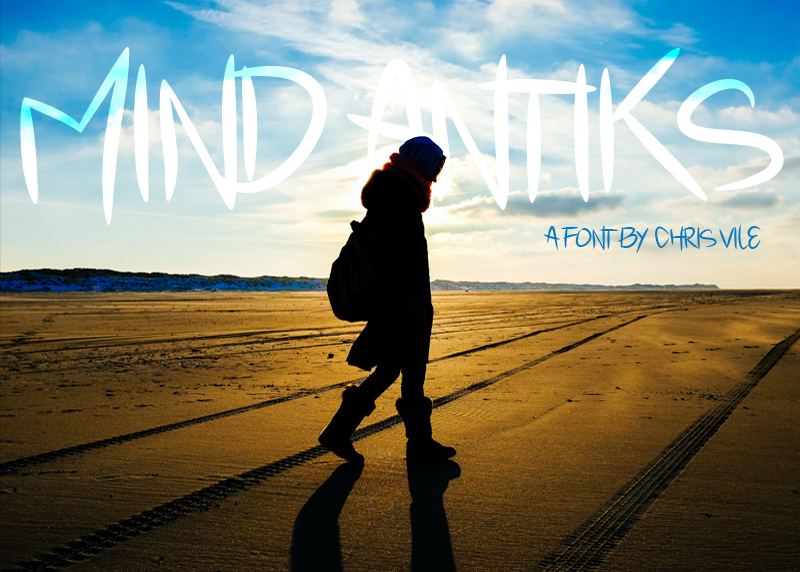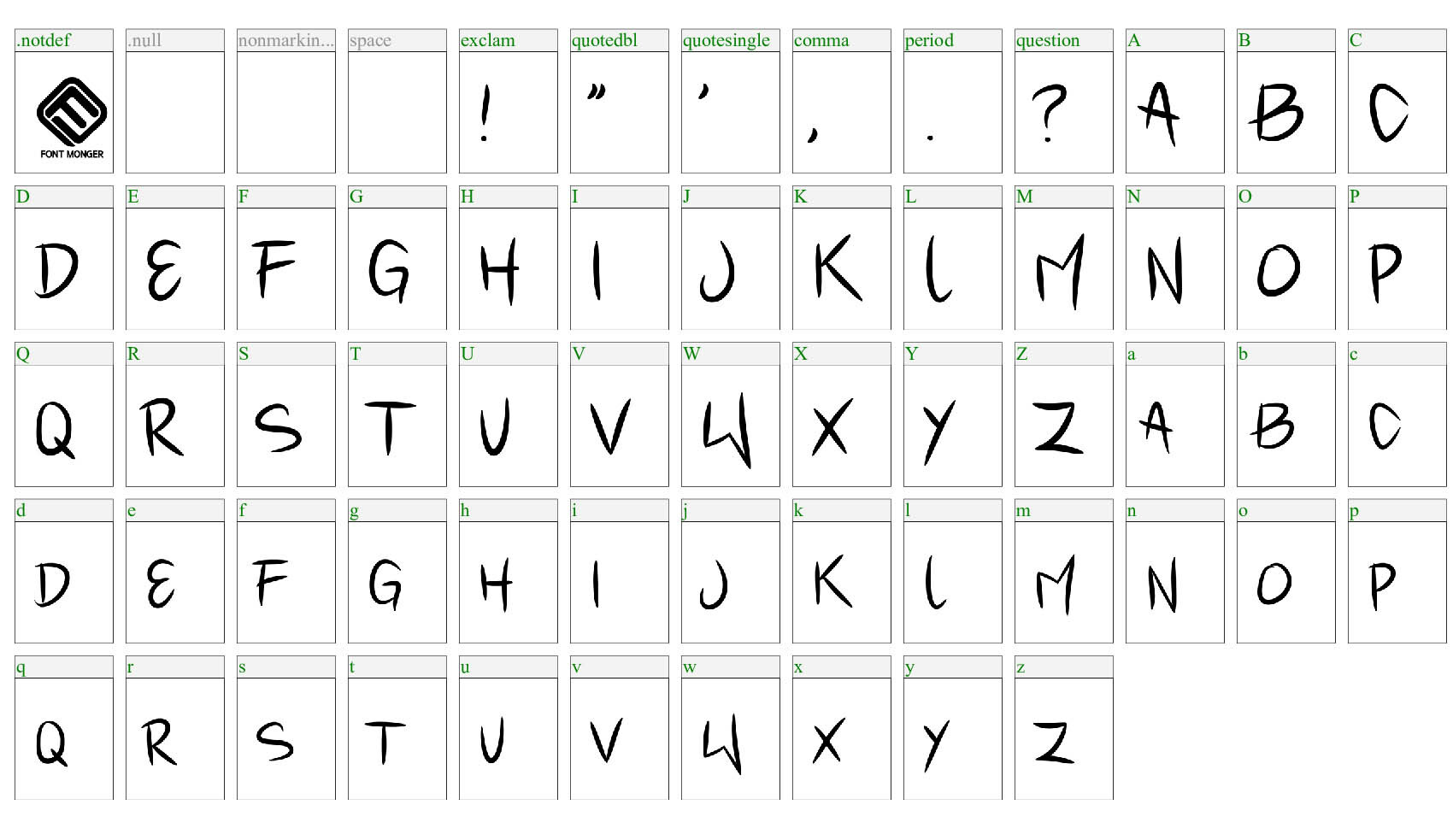
+4 +3 +2Font License for Mind Antiks$49.00 Add More Add to CartGo to CheckoutSave this product for later Favorite Favorited View FavoritesFont License for Mind AntiksProduct Details Font Details This is an all caps font. There is no numbers or accents with limited symbols. View gallery to see available characters. Theme: Handwritten Show MoreYou May Also LikeFont License for Malevolentz$49.00 Buy NowFont License for No Honor Roll$49.00 Buy NowFont License for Natas One$49.00 Buy NowFont License for Rise Inside 2$49.00 Buy Now